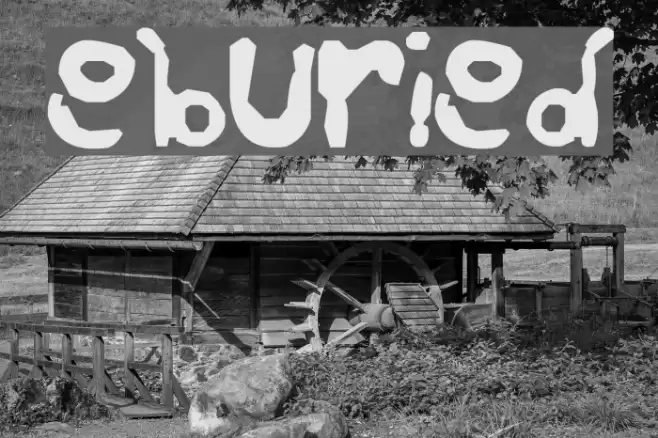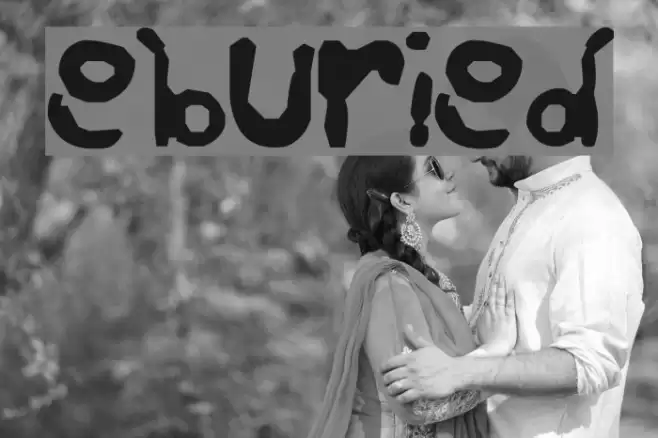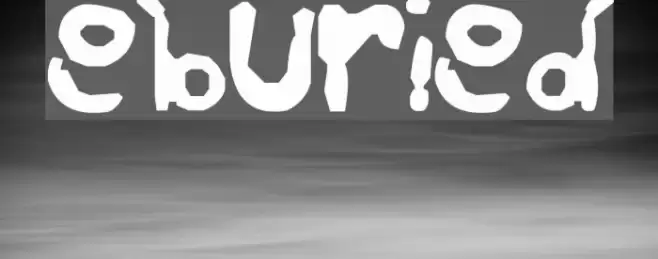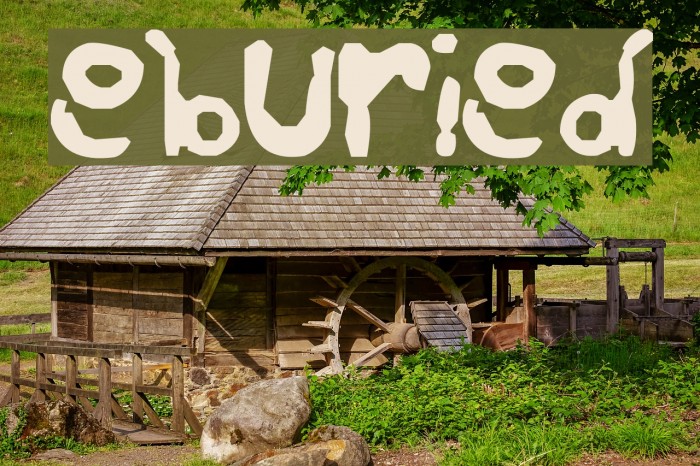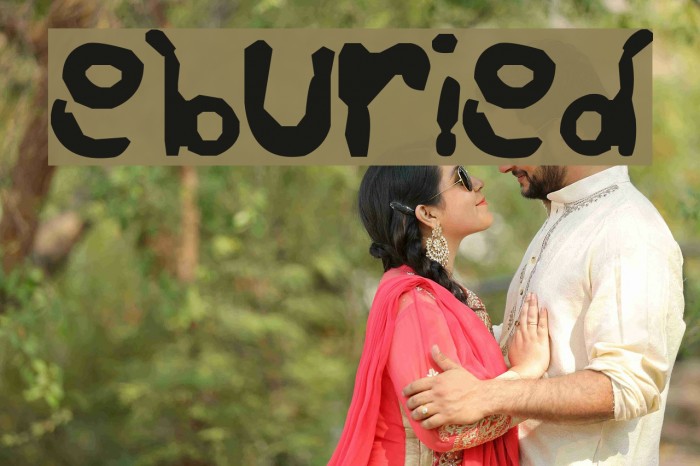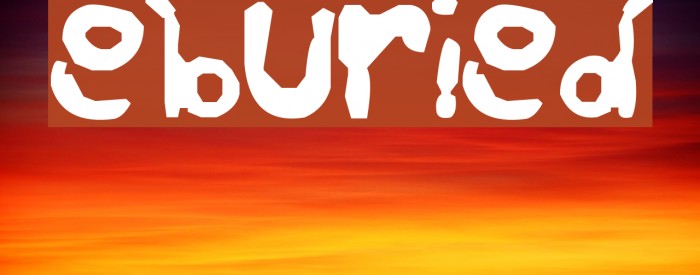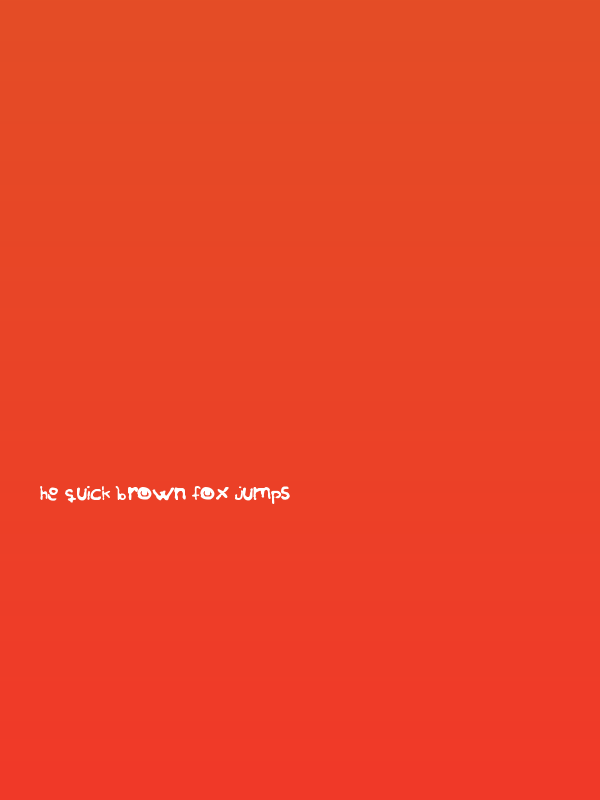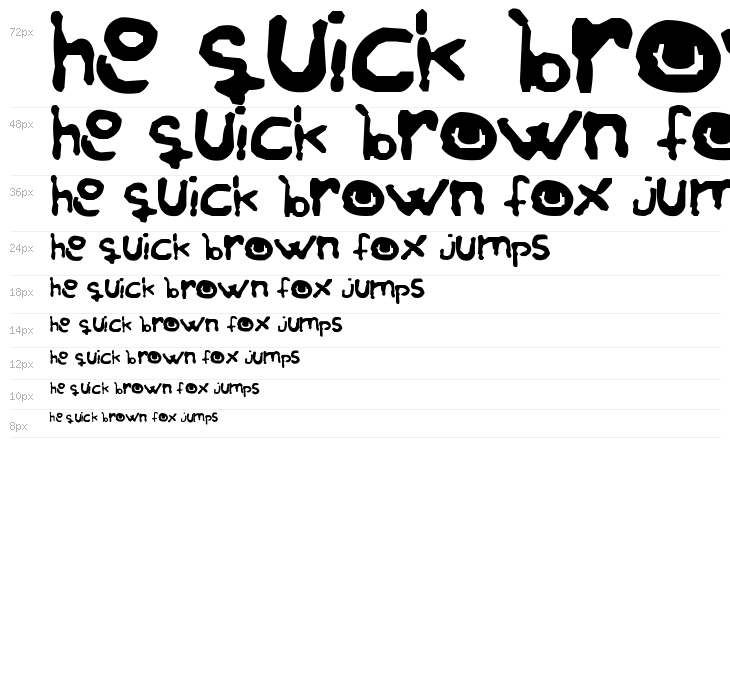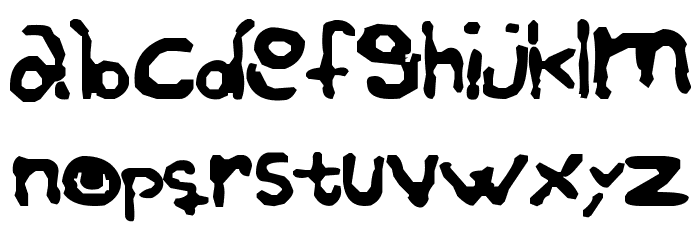
Re-buried Font
Re-buried Description
This font features a highly irregular and organic design, reminiscent of hand-drawn or painted letters. Each character appears to have been crafted with a brush or pen, resulting in a unique, uneven texture that gives the font a playful and artistic feel. The strokes are bold and vary in thickness, adding to the dynamic and lively appearance. The overall style is informal and whimsical, making it suitable for creative and unconventional projects. The letters are closely spaced, contributing to a compact and cohesive look. This font is ideal for projects that aim to convey a sense of creativity and individuality.
An irregular, hand-drawn style font with bold, dynamic strokes and a playful appearance from Decorative fonts.
- Proposed Projects: Ideal for artistic projects, children's books, creative posters, and unique branding materials.
- Character Spacing: Tight
- Overall Style: Whimsical
- Use Case: Logos, Posters, Creative projects